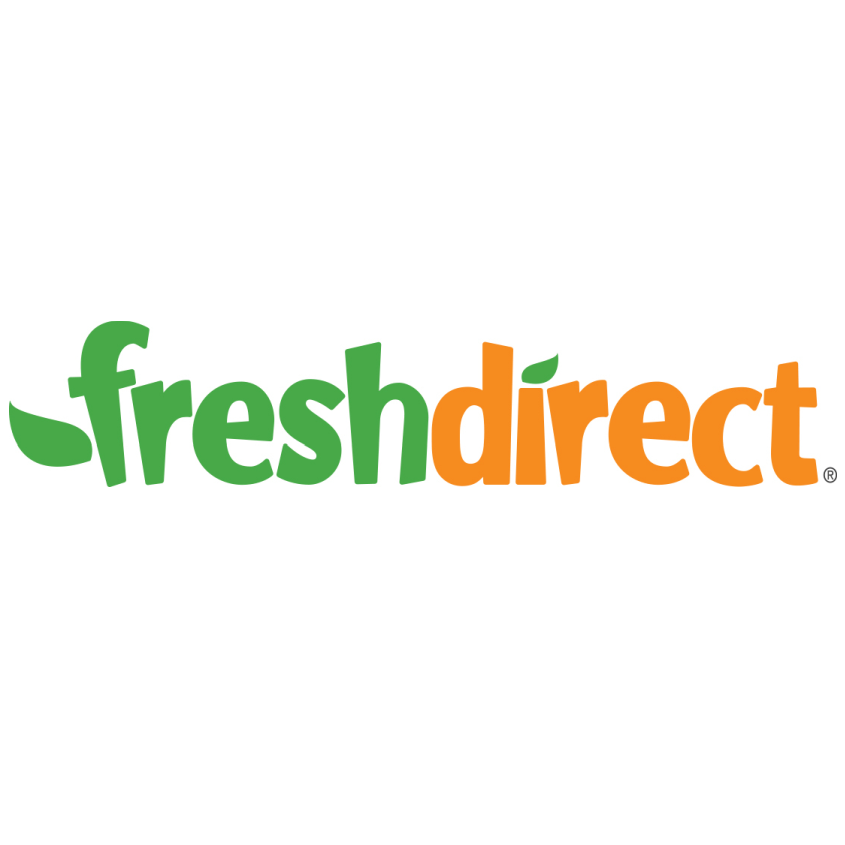
FreshDirect Logo Font
Fonts in UseFreshDirect is an online grocery delivery service that offers fresh, high-quality food and household items to customers in select areas of the Northeastern United States.
The logo font resembles Burweed, a typeface created by Patricia Lillie in 1996, that is offered in two variations: Burweed Regular and Burweed Thorny. You can view and learn more about the font family here.